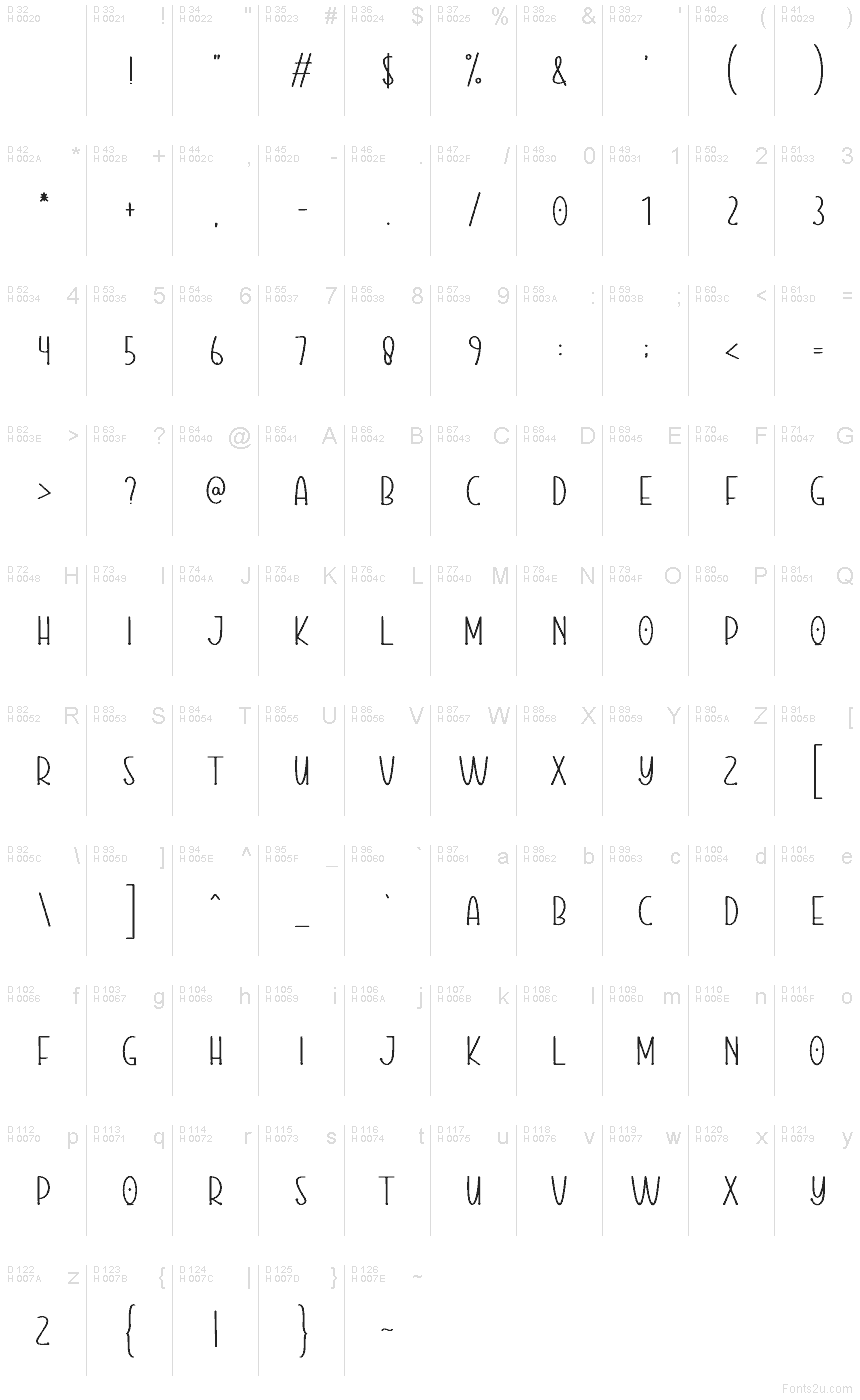
ROBOT REMOTE
Robot Remote font by Andi Moz captures a light, futuristic feel wrapped in a modern design. With geometric influences and quirky elements, this handwritten font stands out with its condensed presentation. As an attention-grabbing free handwritten font, it is perfect for when you want to create the most focused impression.